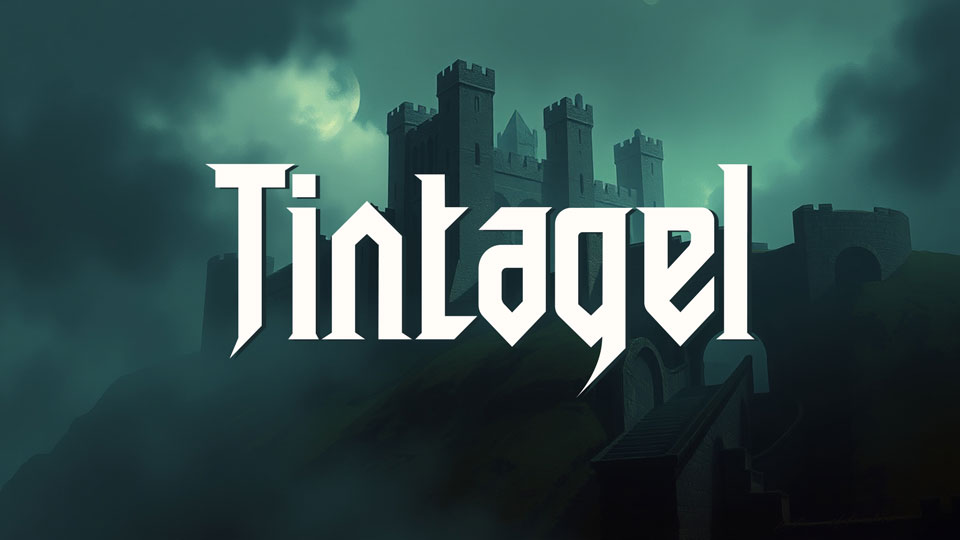
Download Tintagel font, a display typeface that pays homage to the story as a modern gothic font. Very readable but also very decorative.
Designer: Rob Hindley